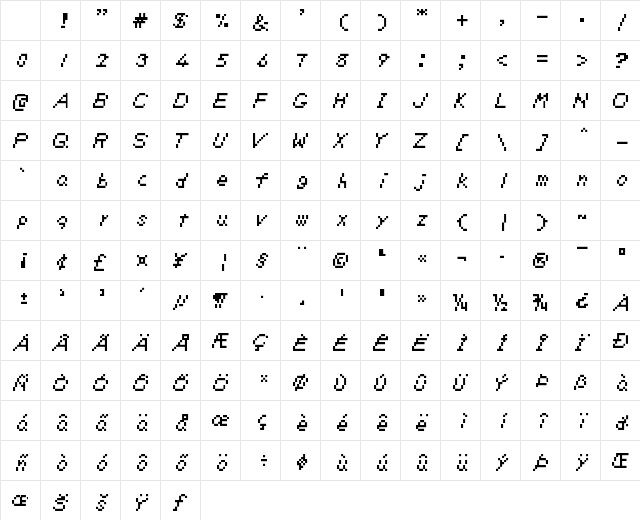
Complete Zelda DX TT BRK Regular glyph index. Displaying only characters natively supported by Zelda DX TT BRK Regular font.
Zelda DX TT BRK is a composed and adaptable typeface that performs quietly and consistently across a wide range of design contexts.